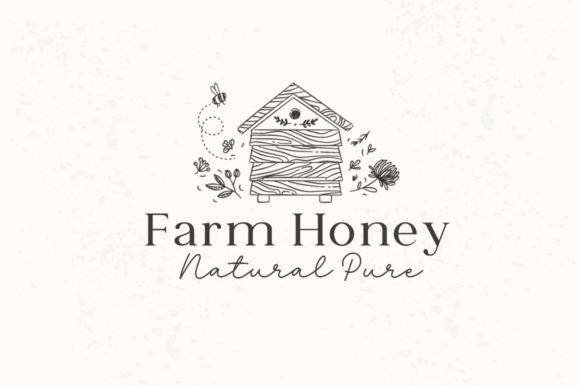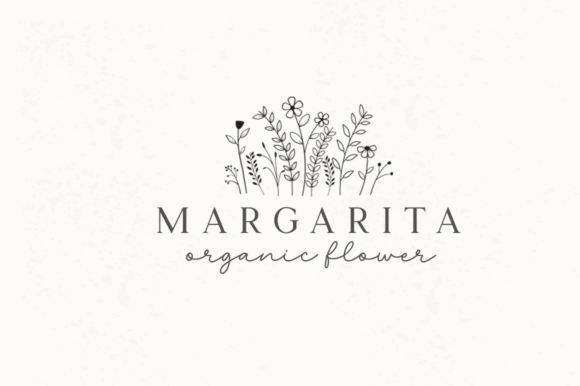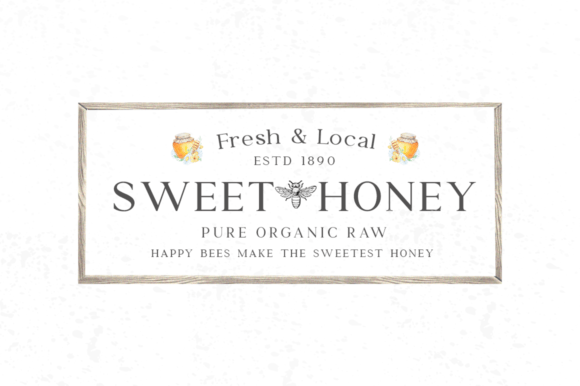
Introduction to Flower & Honey Font
There’s something magical about the moment when a design comes together – a spark of creativity that sets your heart racing and your imagination soaring. It’s the moment when you know you’ve created something truly special, something that will bring a smile to the faces of those who see it. For designers, this moment is what makes all the hard work worth it. And with the right design resource, that moment can be achieved time and time again.
Enter the Flower & Honey Font, a stunning pair of fonts designed to complement each other perfectly. Whether you’re working on a high-quality creative project or simply looking to add a stylish touch to your design, these fonts are the perfect choice. With their high-quality design and transparent background, they’re sure to elevate your work to the next level.
Key Features of Flower & Honey Font
- High-quality design for a creative project, perfect as a design resource for artists and designers.
- Includes a range of glyphs, including letters, numbers, and punctuation marks, making it a versatile design resource.
- Size: Includes 5 font styles, each with its unique characteristics, adding depth and variety to any design project.
Honest Review: Flower & Honey Font
As a designer, I’m always on the lookout for high-quality design resources that can elevate my creative projects. The Flower & Honey Font is one such find that has caught my attention lately.
What works well about this font is its whimsical and playful vibe. It’s perfect for projects that require a touch of elegance and sophistication. The font is highly customizable, making it a great design resource for designers who want to create unique and personalized content.
- ✨ High-quality design with a transparent background, making it perfect for use on any background.
- ✨ Great for creative projects such as wedding invitations, greeting cards, and social media graphics.
However, there are some limitations to consider. The font may not be suitable for projects that require a professional or corporate tone. Additionally, the font’s design may be too ornate for some designers’ tastes.
Overall, I think the Flower & Honey Font is a great addition to any designer’s toolkit. While it may not be perfect for every project, its unique design and high-quality features make it a valuable resource for designers who want to add a touch of creativity to their work.
How to Use Flower & Honey Font
The Flower & Honey Font is a high-quality design resource ideal for creative projects requiring a touch of elegance and sophistication. With its unique style and transparent background, it’s perfect for designers looking to add a personal touch to their work.
Tips for Getting the Most Out of Flower & Honey Font
For optimal results, use the Flower & Honey Font in conjunction with other high-quality design elements. Experiment with different font sizes, colors, and combinations to achieve a unique and visually appealing design.
The Flower & Honey Font is suitable for a variety of design projects, including:
Wedding invitations and stationery
Food and beverage branding
Home decor and furniture design